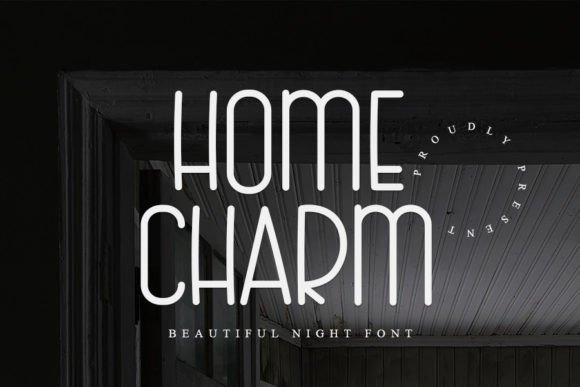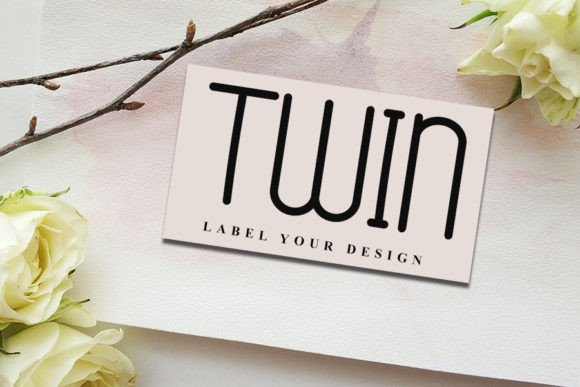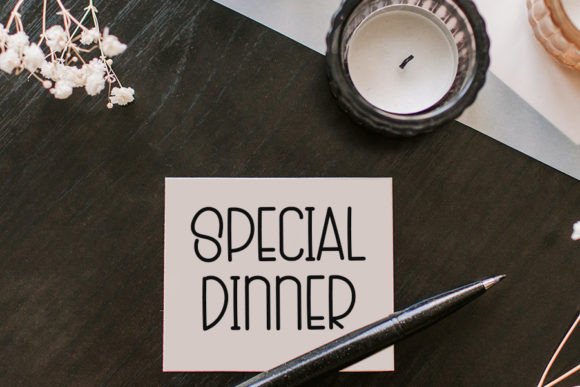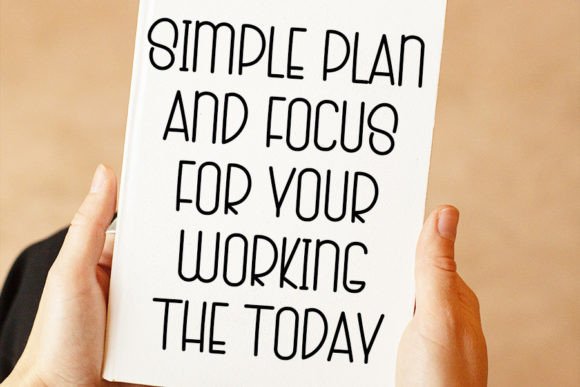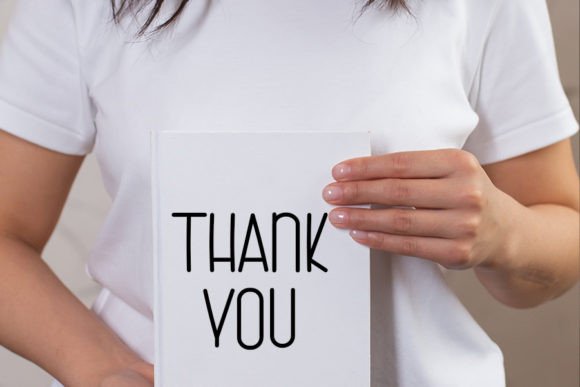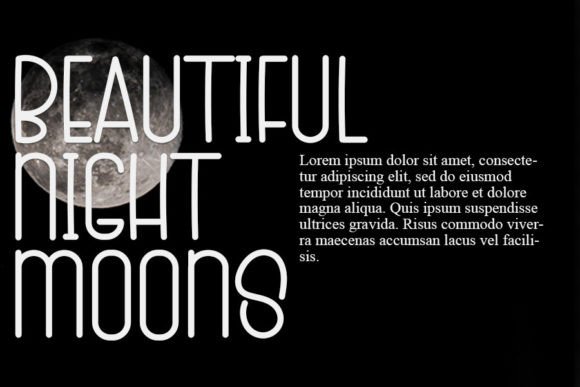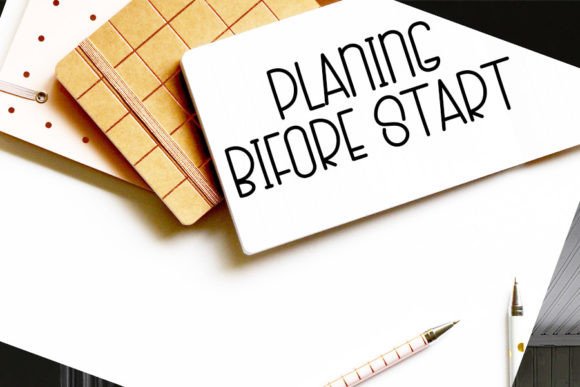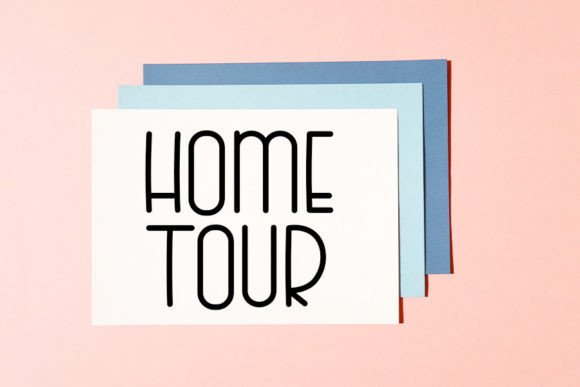
Home Charm Font
About Home Charm Font
“Home Charm” is not just a font; it’s a trendy handwritten typeface that introduces a contemporary atmosphere and impeccable form to your design projects. This font draws inspiration from timeless classic calligraphy, offering a perfect blend of elegance and class for a wide range of creative endeavors.
The distinctive feature of “Home Charm” is its ability to infuse a sense of modernity into the timeless art of calligraphy. The font achieves a harmonious balance, allowing it to be seamlessly incorporated into various design projects, from branding and logos to invitations and more.
The contemporary atmosphere of “Home Charm” sets it apart, making it an ideal choice for designers seeking a font that exudes both sophistication and a touch of the current design trends. Its impeccable form ensures that each character is finely crafted, contributing to the overall visual appeal of your creations.
Whether you’re working on branding materials, logo designs, invitations, or any other creative project, “Home Charm” serves as a versatile and elegant tool. Its adaptability allows it to enhance the aesthetic value of your designs while maintaining a classic charm that stands the test of time.
Introducing “Home Charm” to your font collection is an invitation to elevate your design projects with a touch of contemporary elegance. Let this font be the key element that adds a sophisticated and classy vibe to your visual creations.
In summary, “Home Charm” is a trendy handwritten font that brings a contemporary atmosphere and impeccable form to your designs. Its ability to blend timeless calligraphy with modern aesthetics makes it a valuable asset for a variety of creative projects. Elevate your designs with the elegance and class offered by “Home Charm.”